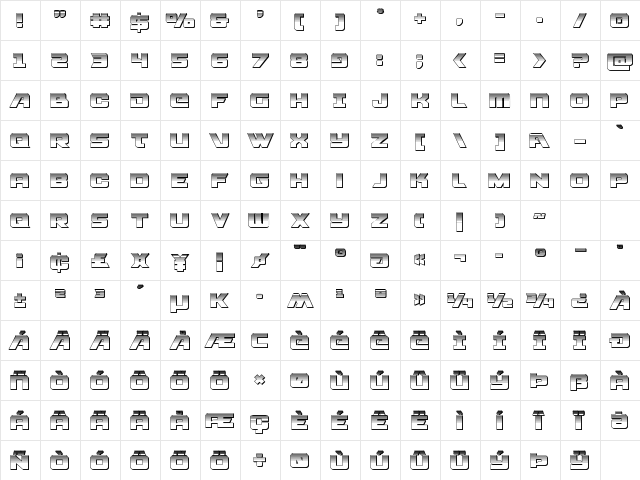
Aircruiser Platinum Regular Free Font
Aircruiser Platinum Regular
Aircruiser Platinum Family
Design Context for Aircruiser Platinum
Aircruiser Platinum is a composed and adaptable typeface that performs quietly and consistently across a wide range of design contexts.
Pro Tip: Use Aircruiser Platinum in both headline and body roles to test its range before committing to a single application.